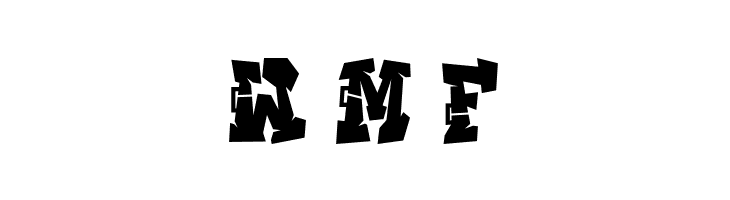
• MWC
( Fonts by Ding Bang )
• Mwd Graff
A bold, graffiti-inspired font with sharp, angular edges and a dynamic urban aesthetic.
• My Autery
An elegant, flowing script font with a classic calligraphic style.
• My December
• My Leaf
( Fonts by Jetsmax Studio )
A whimsical, leaf-inspired font with elegant curves and natural motifs.
• My lovely heart
A graceful script font with elegant loops and swashes, perfect for romantic and artistic designs.
• My World[sk8er_punkd@hotmail.co
• MyCuTEBaLlON
( Fonts by Inopatype )
A playful font with characters inside balloon shapes, perfect for festive designs.
• Myethnic
( Fonts by Syahrul Mubarock )
A decorative font with geometric patterns and thin outlines.
• Myfont